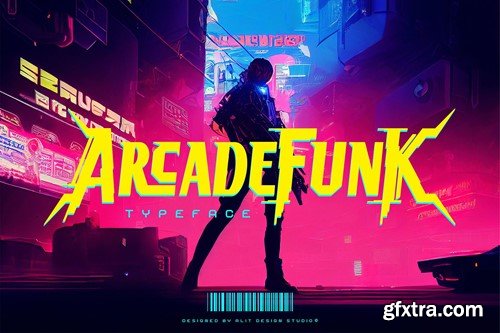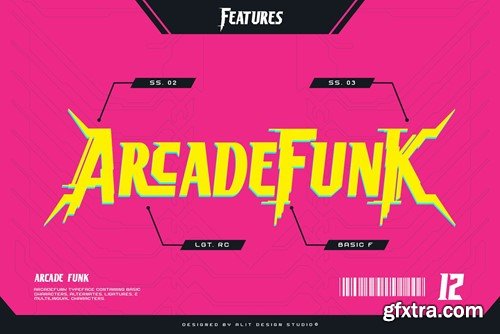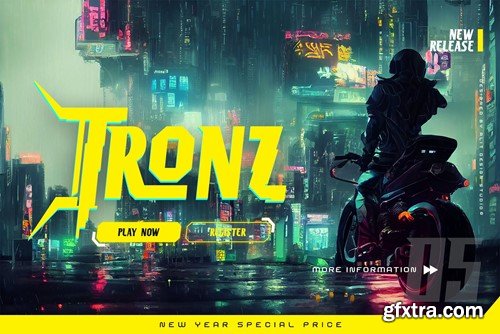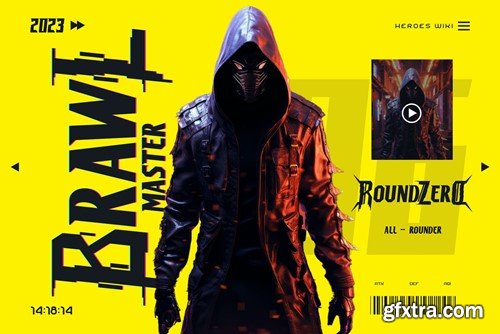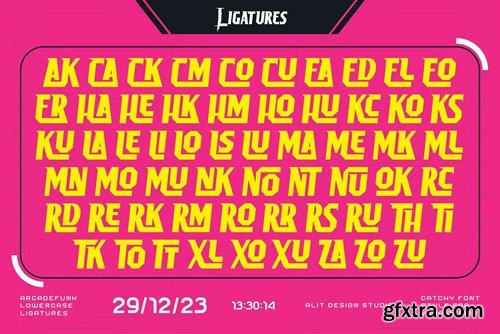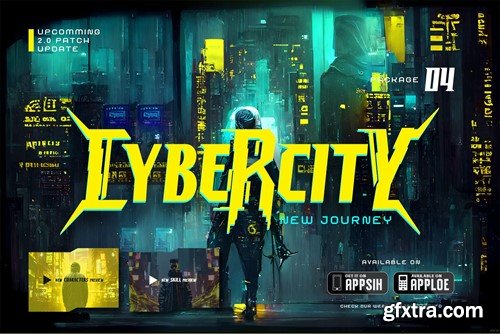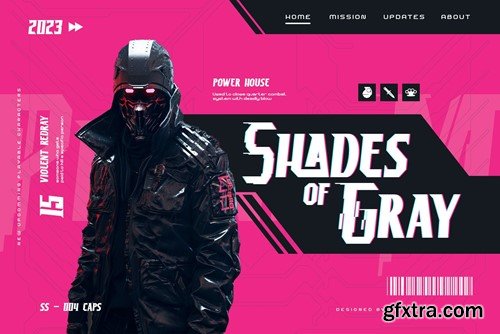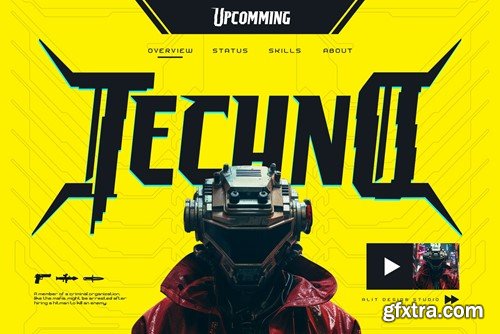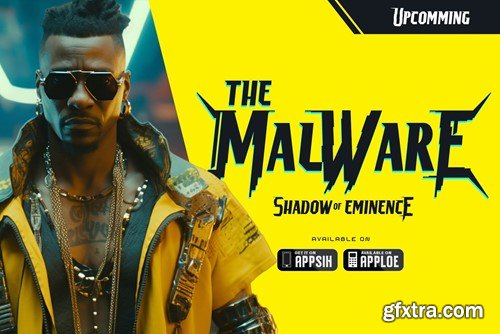
Arcade Funk Typeface 72K7DMZ
Introducing "Arcade Funk" Typeface – Where Modern Funk Meets Brutalism! Unleash the rebellious spirit of punk futuristic games with our cutting-edge typeface, "Arcade Funk." This font is not just a type; it's a statement. Embrace the fusion of modern funk and brutalism, creating a visual language that speaks volumes in the digital realm. Funky Vibes, Modern Appeal: Arcade Funk brings a vibrant blend of funky aesthetics and contemporary appeal. Each character is a testament to the bold, rebellious spirit of punk, making it the perfect choice for games that defy the conventional. Brutalism Redefined: Dive into the world of brutalism with a modern twist. The typeface draws inspiration from the raw, unapologetic architectural style, infusing it with a touch of futurism to create a truly unique visual experience. Versatility at its Core: Whether you're designing game interfaces, posters, or promotional materials, Arcade Funk adapts effortlessly. Its versatility makes it a go-to choice for any project seeking a bold, unconventional edge. Punk Futuristic Flair: Immerse your audience in a punk futuristic atmosphere with characters that exude energy and rebellion. Arcade Funk encapsulates the essence of the punk movement, injecting a dose of audacious creativity into your design. Striking Legibility: Despite its avant-garde design, Arcade Funk maintains excellent legibility. Each character is meticulously crafted to ensure that your message is not only heard but also seen with clarity and style. Digital Gaming Revolution: Revolutionize the digital gaming scene with a typeface that speaks the language of the future. Arcade Funk is your ticket to creating immersive, visually stunning experiences that resonate with the gaming community. Usage Recommendations: Perfect for game titles and interfaces Ideal for posters and promotional materials Great for branding with a rebellious edge Get ready to redefine the rules with Arcade Funk Typeface – where rebellion meets design sophistication. Download now and infuse your projects with the energy of punk futuristic games!